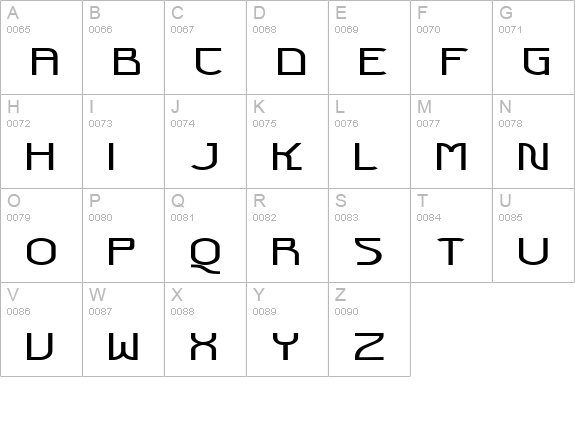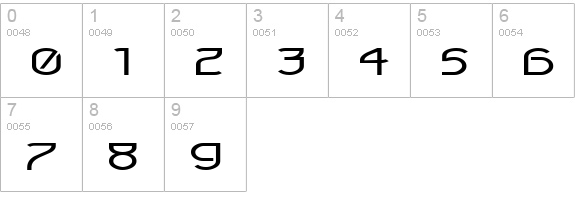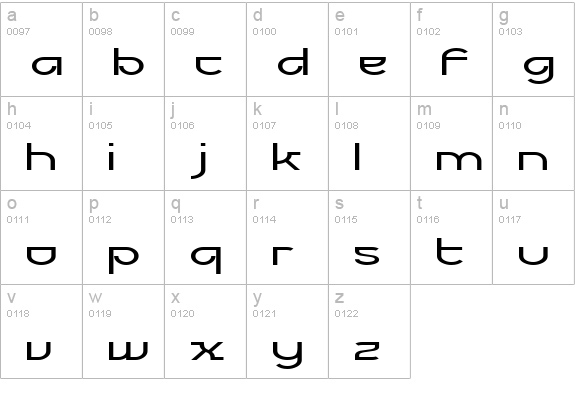
Futurex Voyager is a modern and stylish font that exudes a sense of adventure and innovation. With its sleek lines and futuristic design, this font is perfect for adding a touch of sophistication to any project. Whether you're working on a website, branding materials, or a creative project, Futurex Voyager will make your text stand out and leave a lasting impression. The best part is that Futurex Voyager is available for free download at FontsMarket.com. You can easily access this font and add it to your collection without any cost. Embrace the future of design with Futurex Voyager and elevate your projects to new heights.